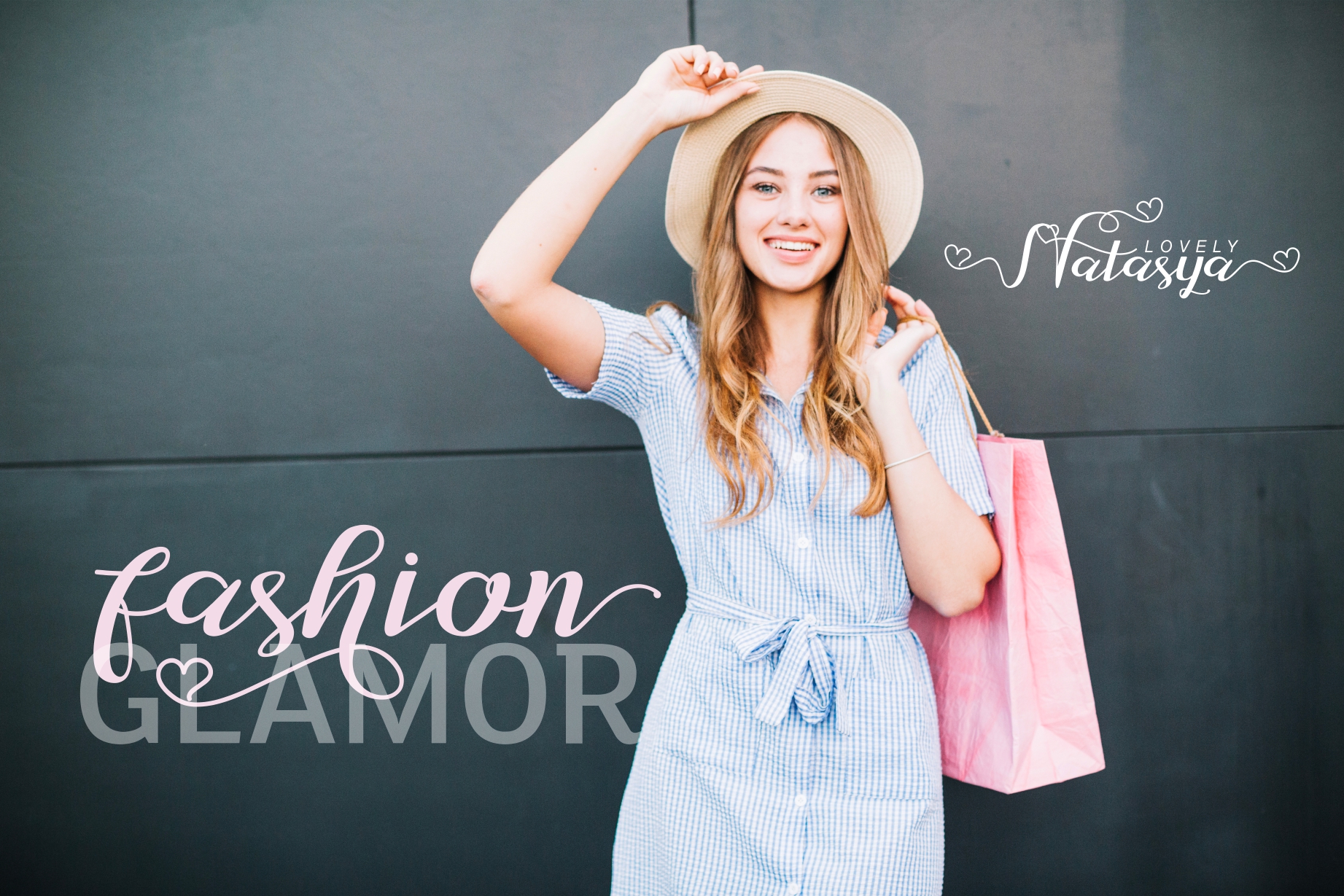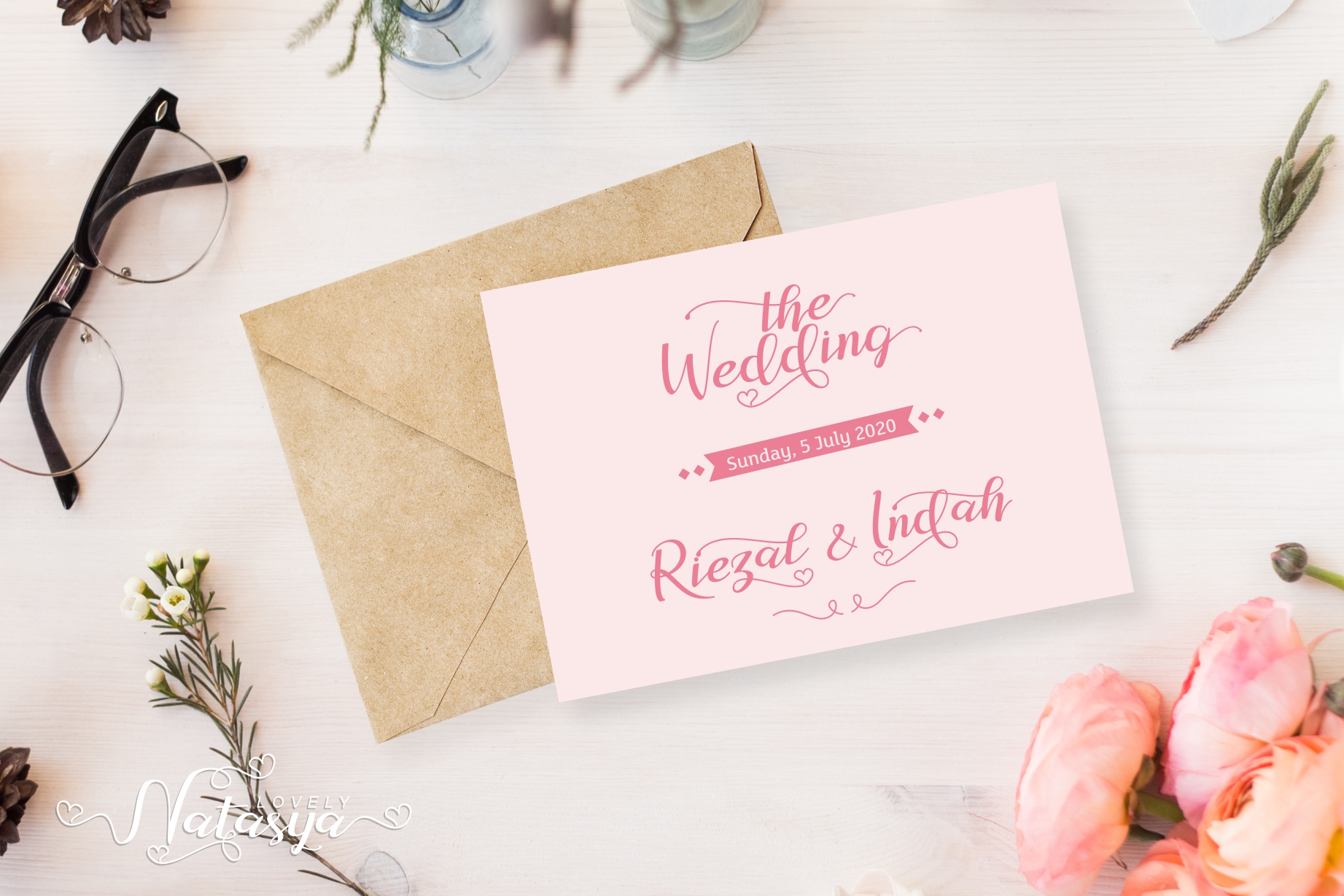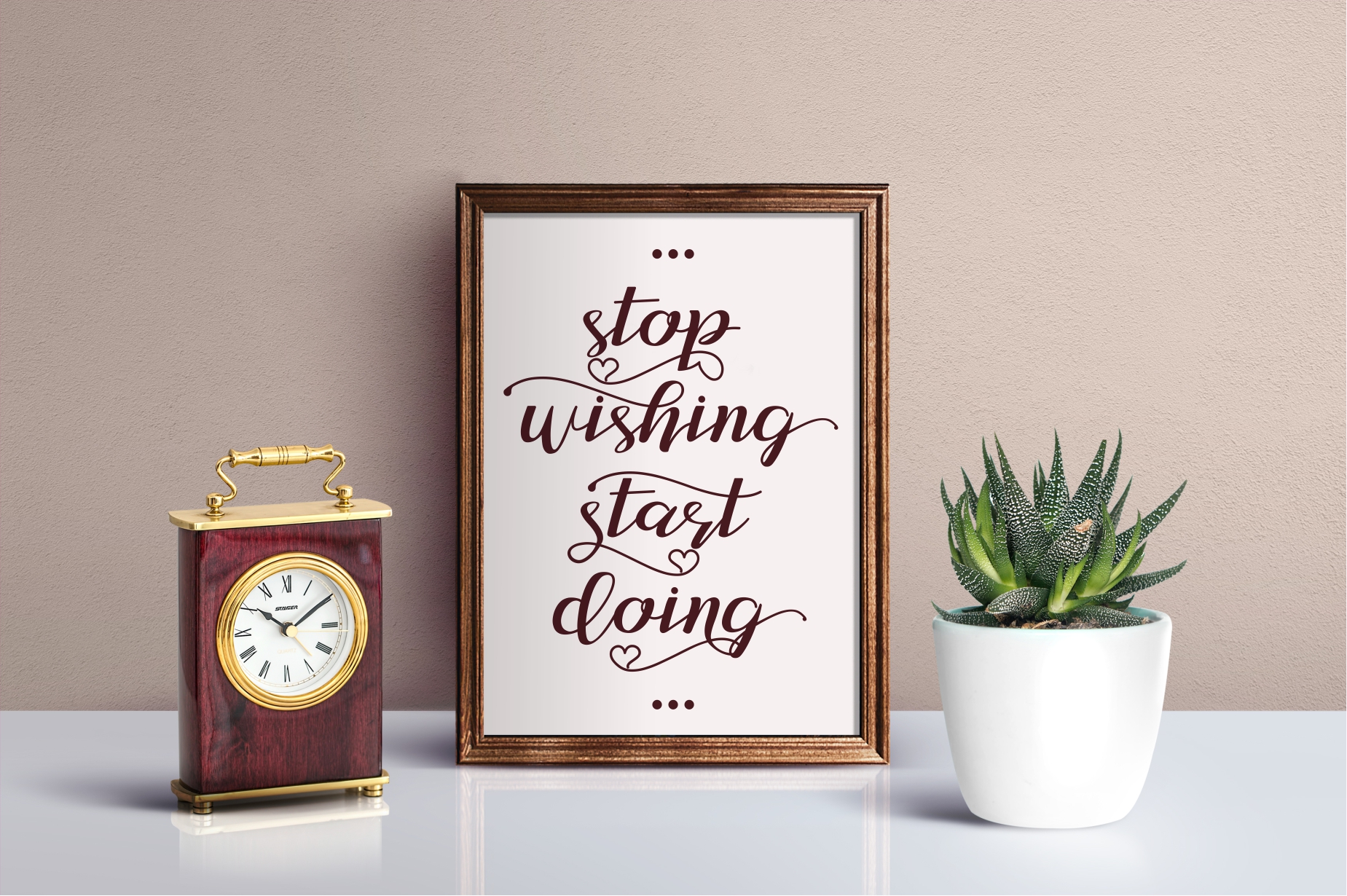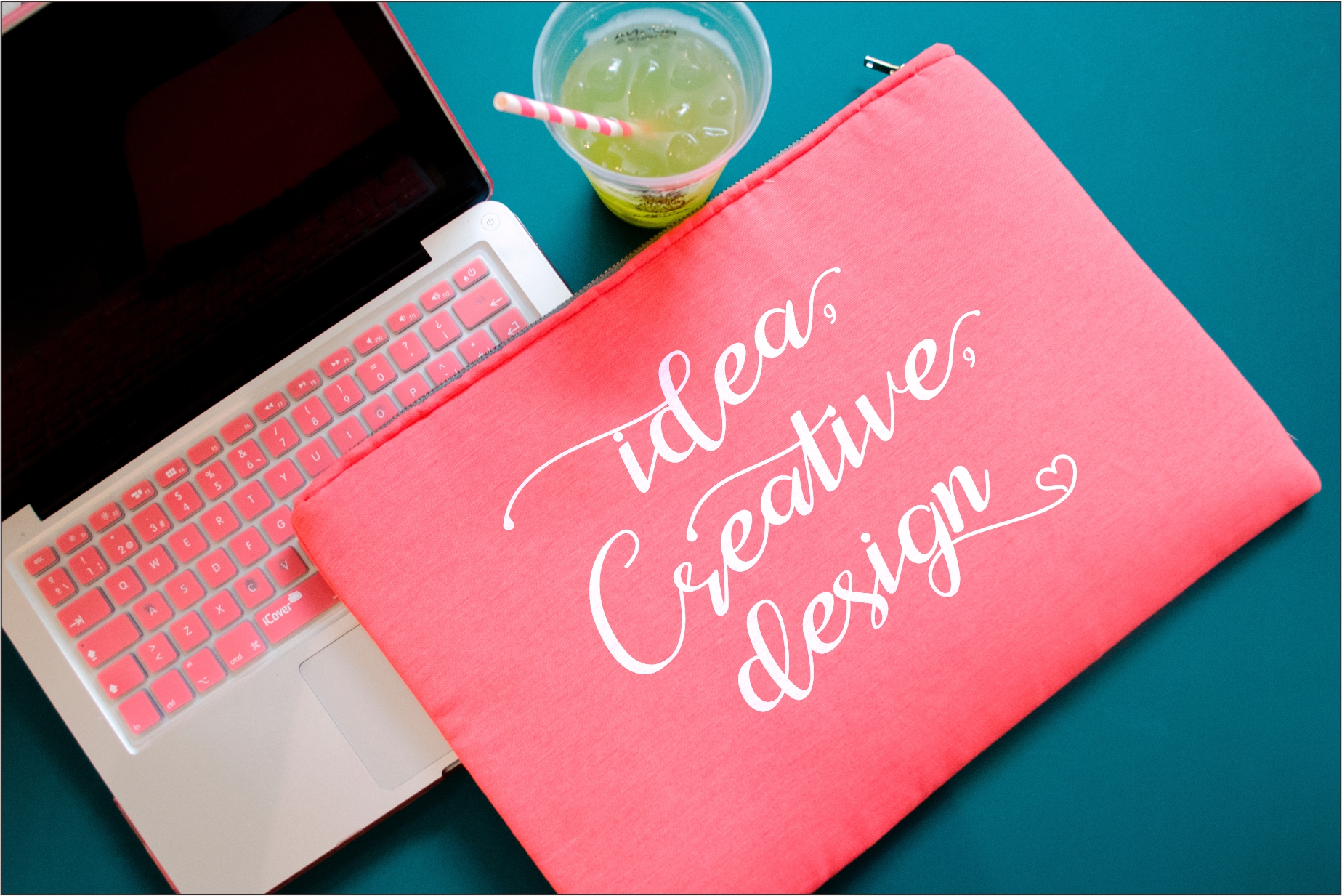
Introduction to Lovely Natasya Font
Lovely Natasya is a new variant of hand-made script typeface, ready to complete your font collection.
This romantic and engaging font is perfect for headlines and as a focal point to your creative projects .